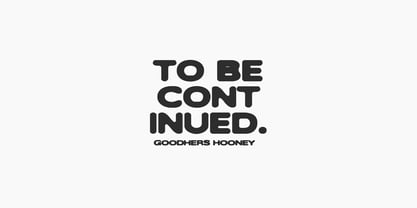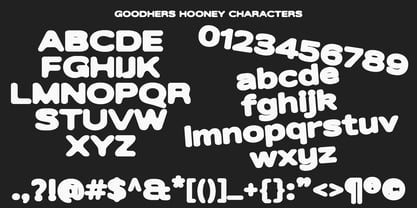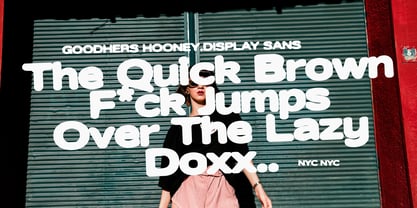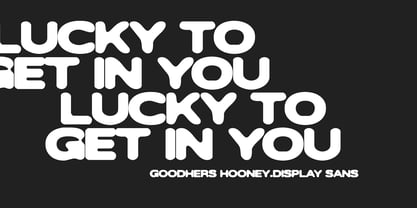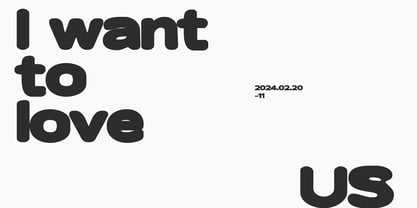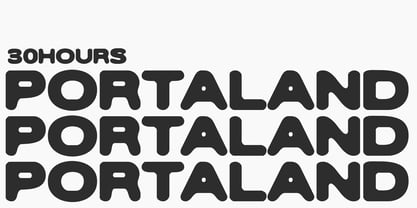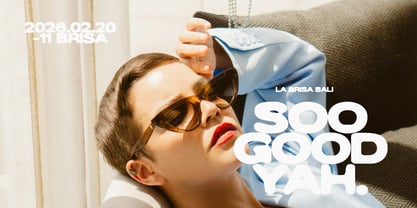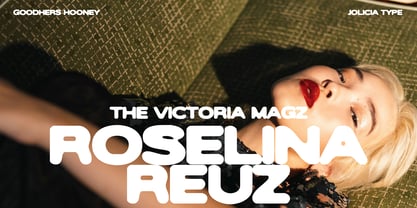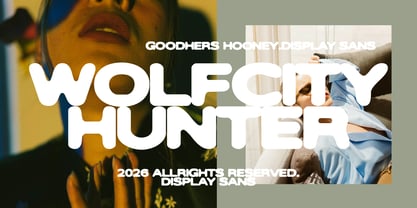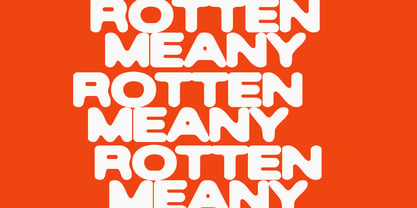
Goodhers Hooney
by Jolicia Type
The Goodhers Hooney Font Family was designed by Laire Banyu and published by Jolicia Type. Goodhers Hooney contains 1 styles. More about this family
Goodhers Hooney is a wide sans serif display typeface crafted to create an immediate visual impact. Featuring thick, rounded, and slightly blurry letterforms, this typeface boasts generous horizontal proportions that deliver a strong presence while maintaining a friendly and approachable feel. Its expanded structure allows each word to occupy space confidently, resulting in a solid and eye-catching silhouette. The smooth curves and soft corners infuse a playful personality, giving the font a subtle retro-pop vibe without feeling outdated. It strikes a balance between boldness and warmth, making it loud enough to stand out yet polished enough to remain versatile. Primarily designed for large-scale applications, Goodhers Hooney excels in headlines, posters, branding projects, music covers, fashion campaigns, packaging, and statement logos. The heavy weight and rounded construction ensure excellent readability while offering a distinctive character. The overall aesthetic is vibrant, expressive, and slightly nostalgic, reminiscent of 70s–90s visual culture, reimagined with a modern twist. This typeface is ideal for brands and creatives seeking typography that exudes confidence, style, and personality. Goodhers Hooney is not just a display font; it’s a bold visual statement with attitude.
Designers: Laire Banyu
Foundry: Jolicia Type